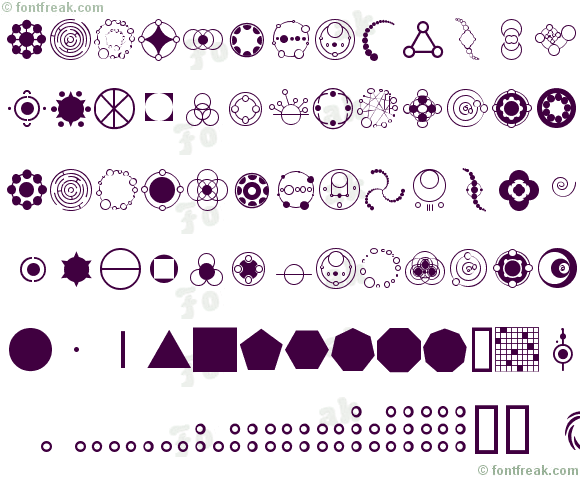
Crop Circle Dingbats
About Crop Circle Dingbats
Crop Circle Dingbats, designed by David Hirmes in 1997, is a captivating collection of decorative dingbats that bring a unique flair to any design project. This font falls under the decorative category, characterized by its playful and whimsical motifs inspired by the enigmatic crop circle phenomenon. The visual style features a variety of symbols, including intricate patterns and geometric shapes, each with a consistent stroke weight that adds a harmonious touch to the overall design. The spacing between the characters is well-balanced, ensuring clarity and ease of use in diverse applications.
This font is ideal for a range of creative projects. For graphic designers looking to make an impact, Crop Circle Dingbats can enhance wedding invitations with its charming symbols, adding an element of intrigue. It's also perfect for movie posters, where the unique graphics can evoke curiosity and draw attention. Small business owners can utilize these dingbats in restaurant menus to create an inviting atmosphere, while content creators may find them useful for crafting engaging social media posts or digital marketing materials.
Targeting graphic designers, small business owners, and content creators, Crop Circle Dingbats serves as a versatile tool that can elevate various design endeavors. The playful nature of this font encourages creativity and exploration, making it a favorite among those seeking to push the boundaries of traditional typography.
What truly sets Crop Circle Dingbats apart is its ability to inspire imagination. The combination of whimsical designs and the rich symbolism associated with crop circles invites users to think outside the box. If you’re looking for a distinctive touch to your projects, consider a Crop Circle Dingbats font free download to see how these delightful symbols can transform your designs into something extraordinary.